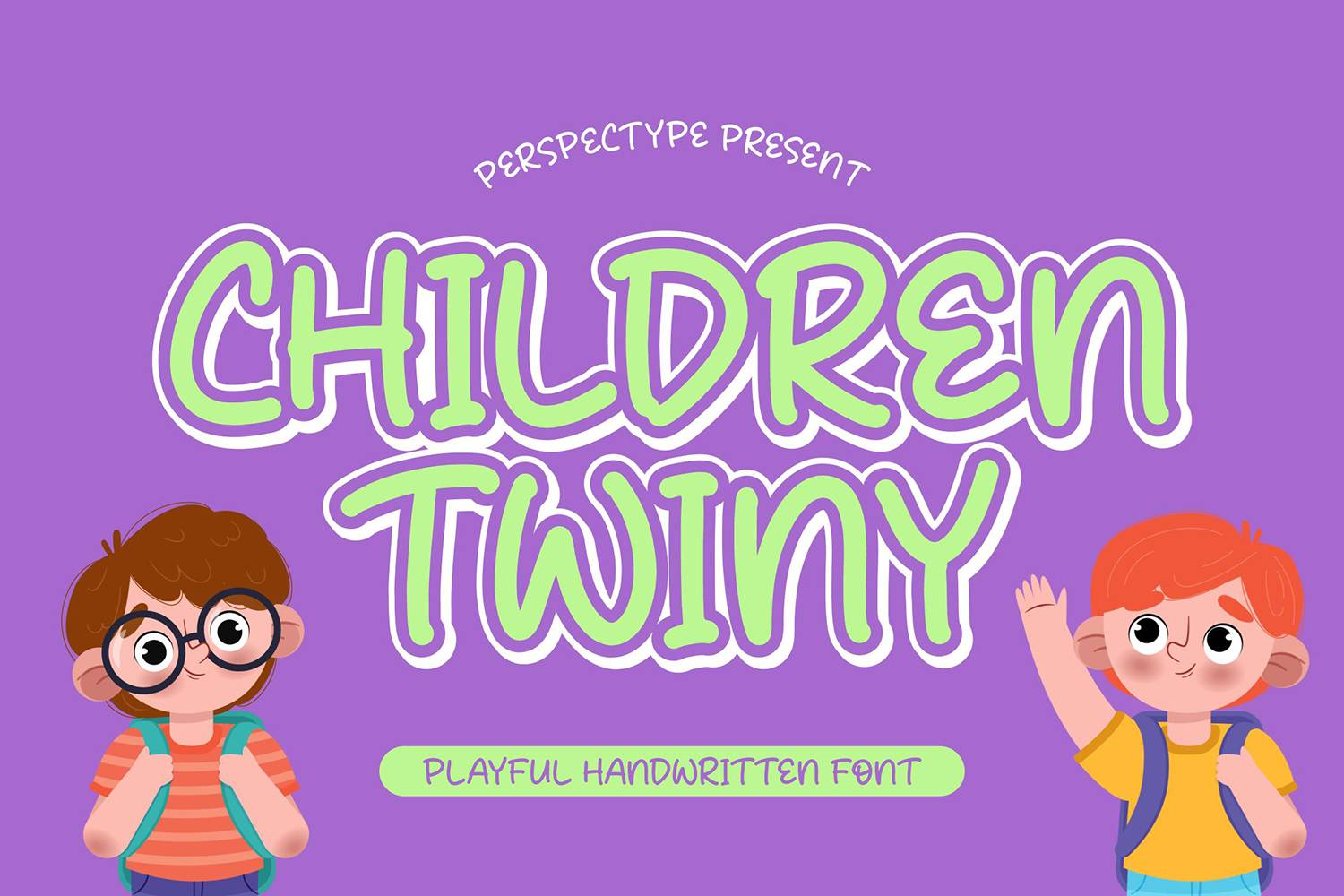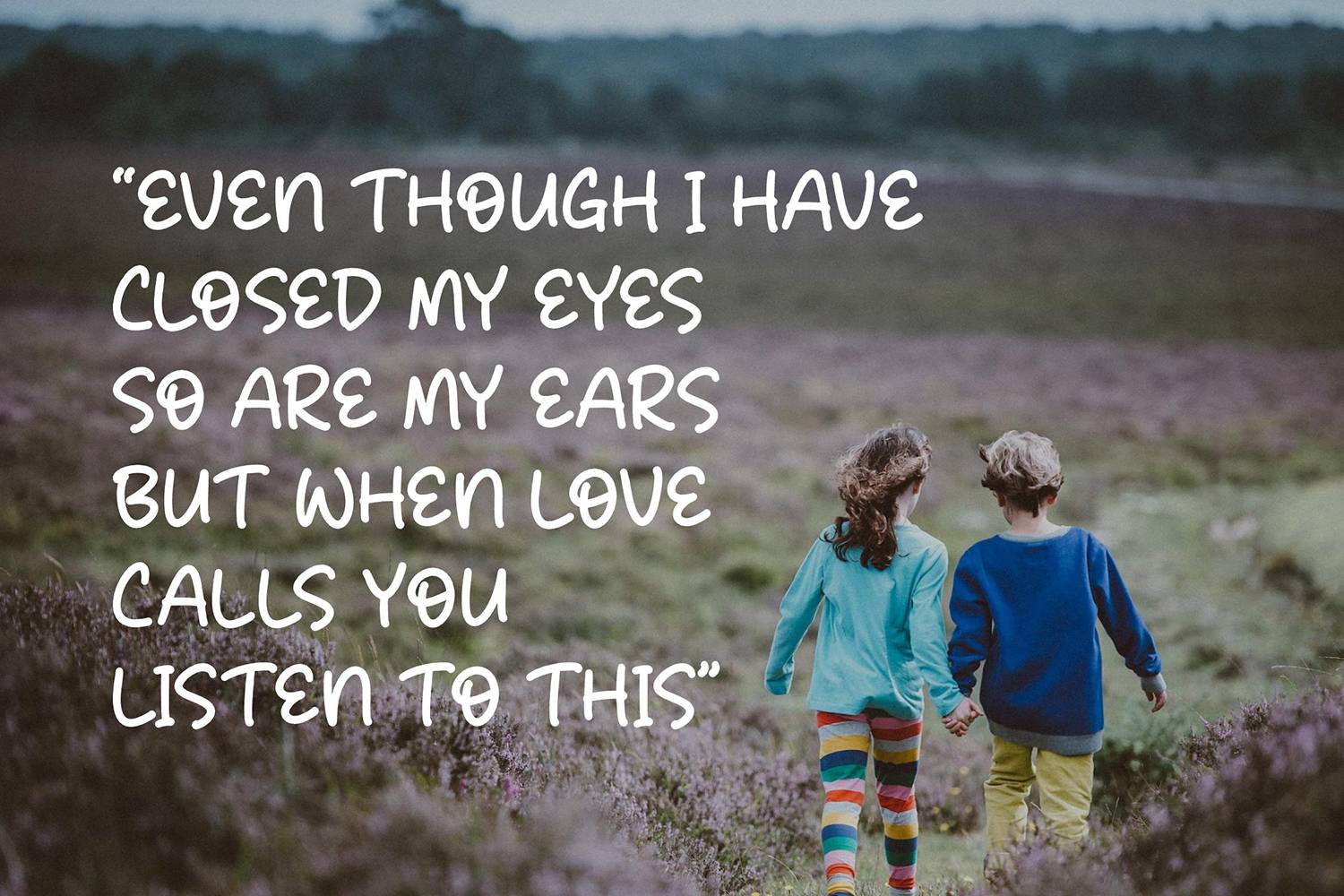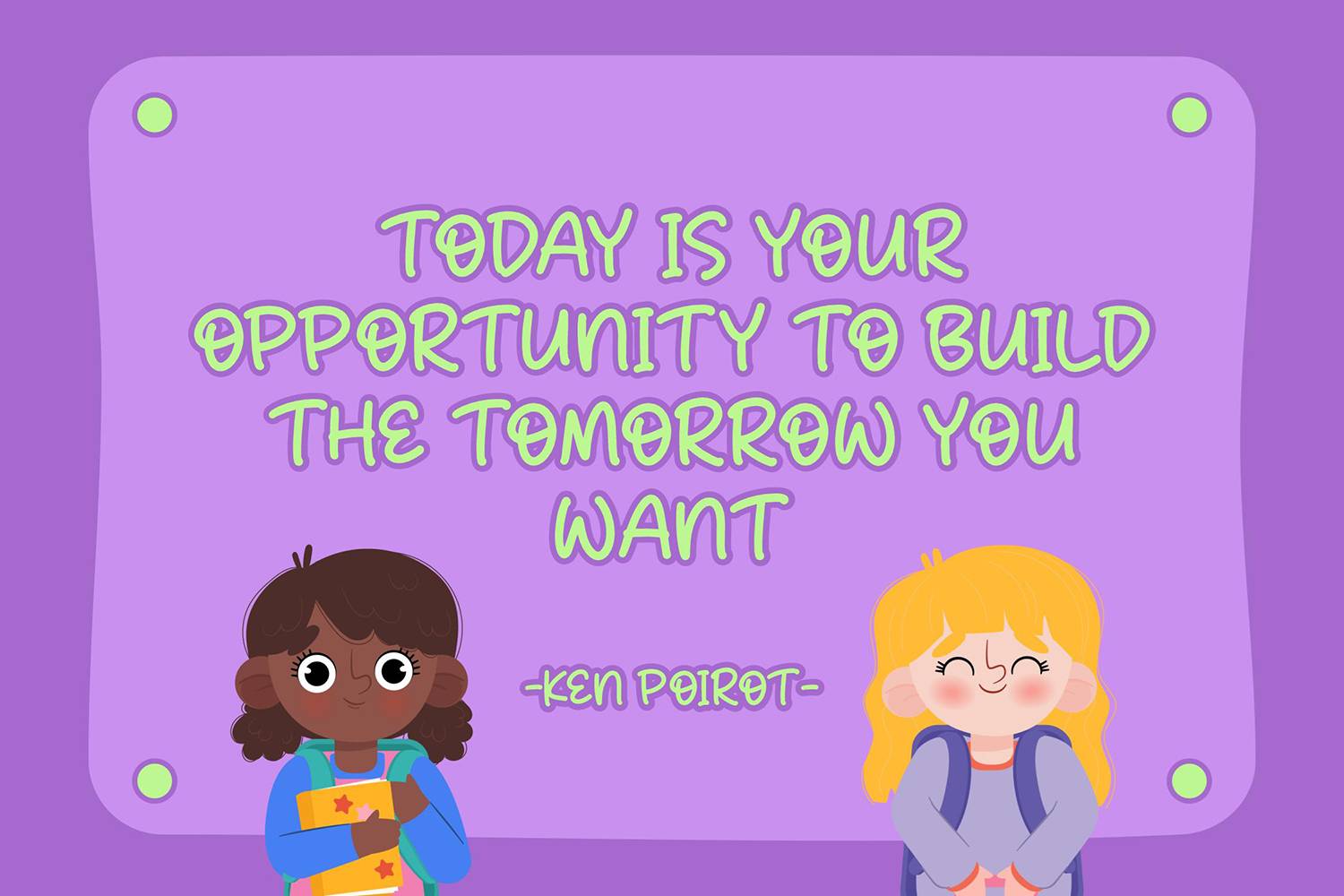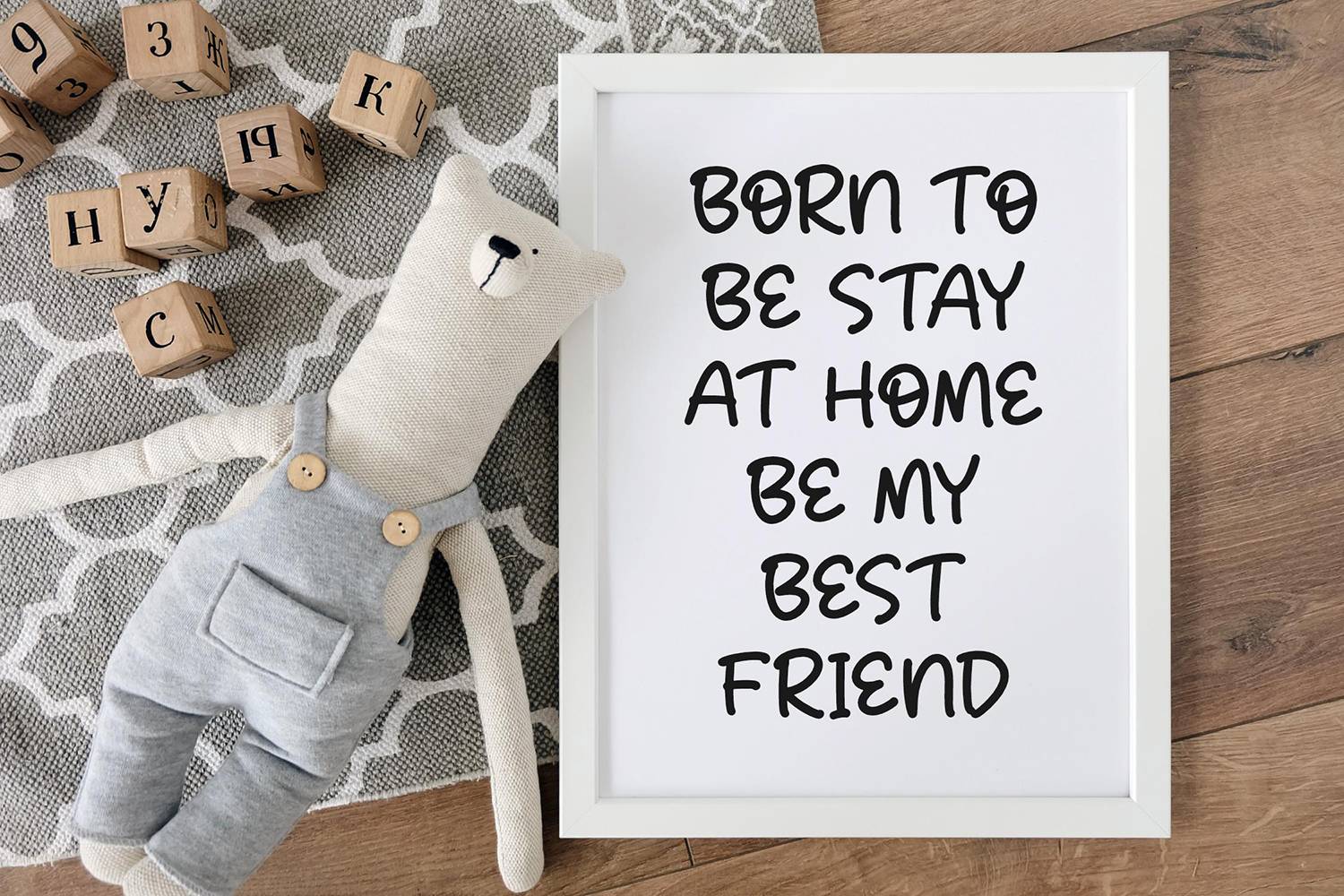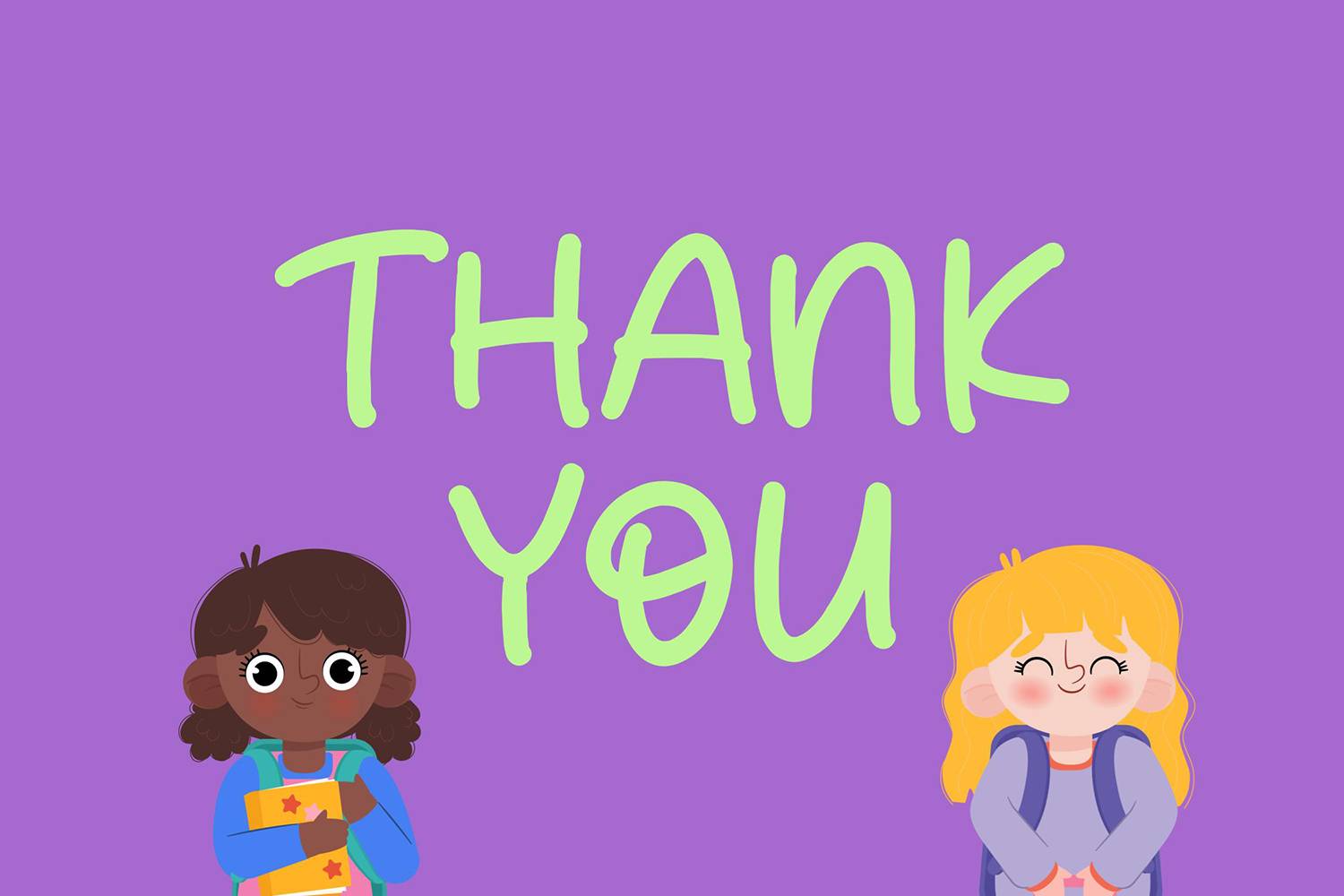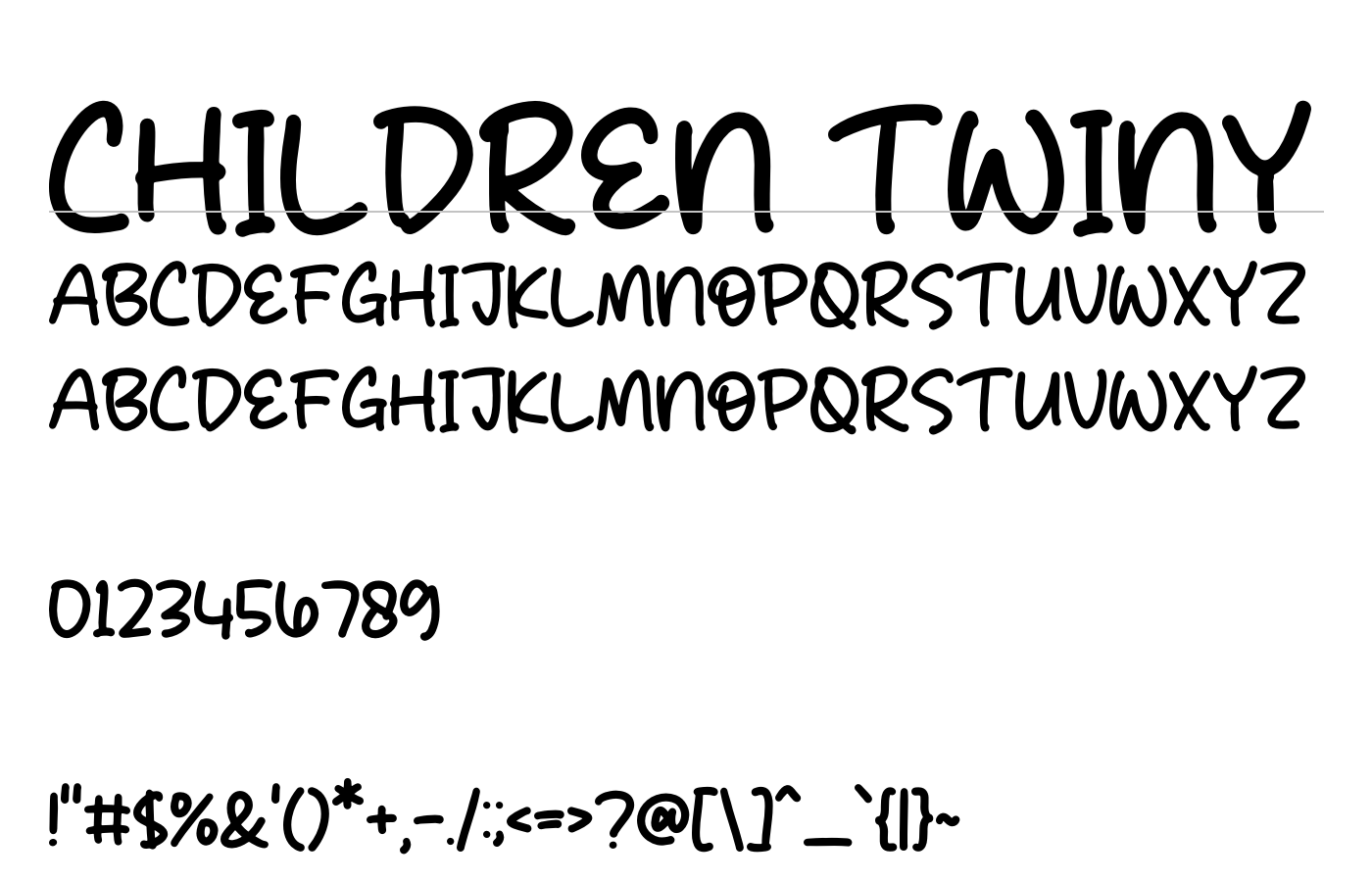
Children Twiny is a playful and casual handwritten sans serif font that captures a fun, childlike spirit with its rounded, irregular strokes and lively character shapes. Its medium weight and normal width give it a friendly, approachable feel, making it perfect for children’s books, educational materials, and playful branding. This font works well in informal settings where a warm, personal touch is desired, especially for headlines, logos, and creative projects targeting young audiences.
Children Twiny Font